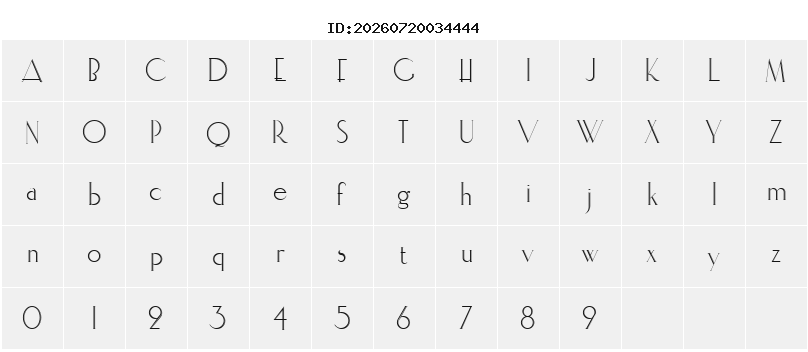
ElisiaInline Preview
• Font Name: ElisiaInline
• Full Font Name: ElisiaInline
About ElisiaInline.ttf
ElisiaInline.ttf is a modern, elegant sans-serif font designed for ultimate readability and visual harmony. Perfect for branding, headlines, web design, and print materials.